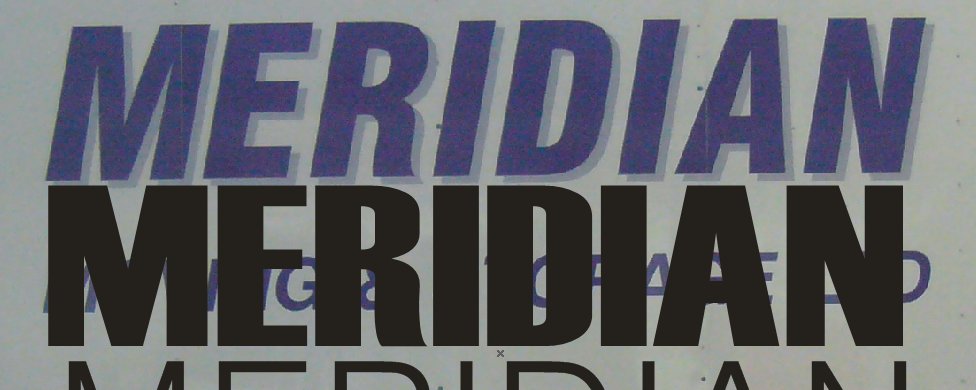
hi, need to reproduce some artwork for a customer, they don’t know what the font is…
the blue font is what i need,
close fonts are ‘ff halva’, ‘dotum’, and the one shown…. ‘haettenschweiler’, all are either too thin, too fat, etc, i’m basing the similarity on the rather distinct ‘R’.
What about Helvetica Medium, slanted slightly?
it’s not far off, is there such a font as helvetica condensed bold ? i reckon that might do it ? that or bold.
Hugh, the only reason Helvetica occured to me is that in the old days it was the "standard" default font that was installed on the first plotters.
Therefore many signs were made using that font.
Try Swiss, I think it is nearly the same thing.
thanks Jill, i’ll have a se if i can find the family somewhere, the font looks very close, just too thin, and too expanded ! i might be able to fatten and condense it but it isn’t an easy fix (had a quick go), some fatter and space easily, this one doesn’t !!
I think it’s Helvetica Heavy Condensed Oblique, with a bit of extra pulling
about as well.
thank you Jamie i did just manage to make this one fit with some work, but hopefully yours is correct, i’ll use the below swiss to make the rest of the text,